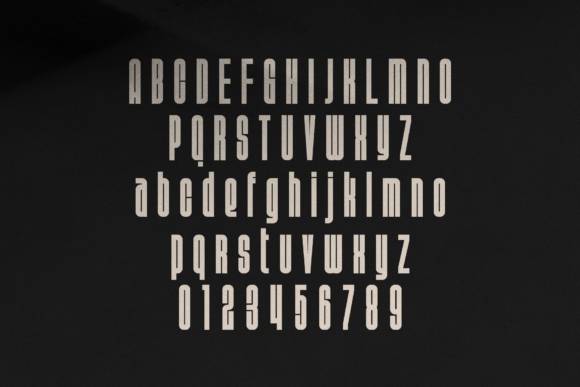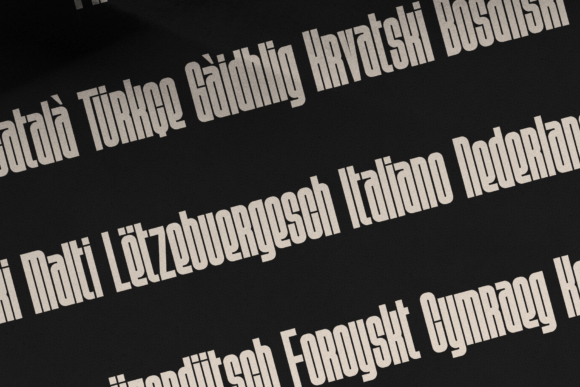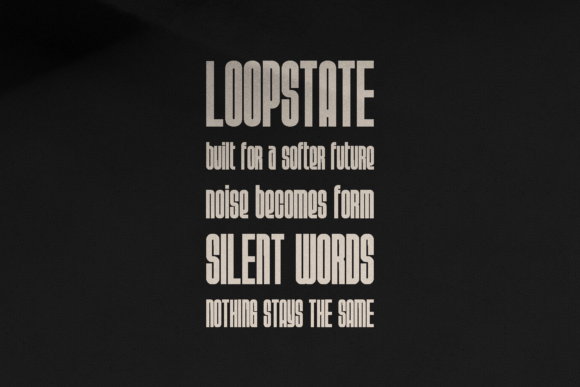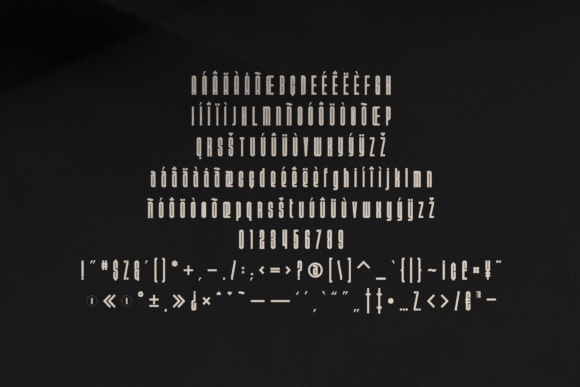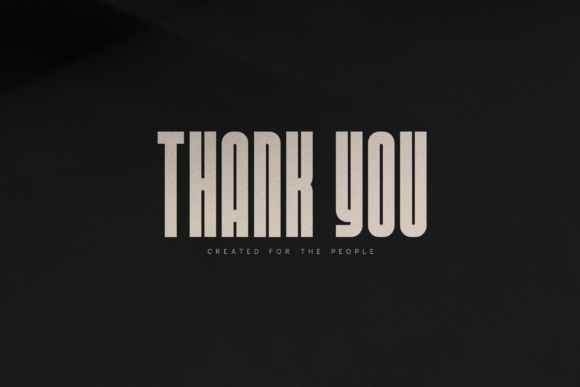
Aisling Logo Edition Font: Elevate Your Brand with a Bold, Modern Typeface
In the realm of typography, a well-crafted font can be the key to unlocking a brand’s visual identity. Introducing Aisling Logo Edition, a bold, condensed display sans serif font engineered to make a lasting impression. With its sleek, modern design and exceptional readability, Aisling Logo Edition is poised to become the go-to typeface for designers and brands seeking to elevate their visual presence.
Aisling Logo Edition boasts a distinctive set of characteristics that set it apart from other fonts. Its tall proportions and clean geometry lend a sense of sophistication and elegance, while its bold, condensed style ensures that your message will cut through the noise. This sans serif font is meticulously crafted to deliver a confident, minimalist aesthetic that resonates with modern design sensibilities.
Aisling Logo Edition’s versatility makes it an excellent choice for various design projects, including:
• Logos and Branding: Create a lasting impression with a bold, memorable logo that communicates your brand’s values and personality.
• Headlines and Posters: Grab attention with a font that shines in large sizes, perfect for headlines, posters, and editorial layouts.
• Editorials and Magazines: Elevate your publication’s typography with a modern, sophisticated font that enhances readability and visual appeal.
• Luxury Labels and Fashion Brands: Convey high-end quality and style with a font that exudes confidence and sophistication.
• Digital and Print Projects: Seamlessly integrate Aisling Logo Edition into your social media graphics, packaging, and marketing materials for a cohesive brand image.
Why Choose Aisling Logo Edition?
Aisling Logo Edition offers a unique combination of style, versatility, and readability, making it an attractive choice for designers and brands. Here are just a few reasons why:
• Exceptional Readability: Despite its bold, condensed design, Aisling Logo Edition remains highly readable, even in smaller sizes.
• Modern Aesthetic: This font’s sleek, geometric design ensures that your brand will appear modern, forward-thinking, and visually appealing.
• Flexibility: Use Aisling Logo Edition across a wide range of design projects, from logos and branding to editorial layouts and digital marketing materials.
Tips for Using Aisling Logo Edition
To get the most out of Aisling Logo Edition, consider the following tips:
• Pair with Complementary Fonts: Combine Aisling Logo Edition with serif or script fonts to create visual interest and contrast.
• Experiment with Color: Take advantage of Aisling Logo Edition’s bold design by using it with a range of colors, from bold and bright to subtle and muted.
• Pay Attention to Spacing: Ensure that your text is properly spaced to maximize readability and visual impact.
Aisling Logo Edition is a bold, modern typeface that offers a unique combination of style, versatility, and readability. With its clean geometry, tall proportions, and confident aesthetic, this font is poised to become a go-to choice for designers and brands seeking to elevate their visual presence. Whether you’re creating a logo, branding materials, or editorial layouts, Aisling Logo Edition is the perfect choice for those who demand a modern, sophisticated look.